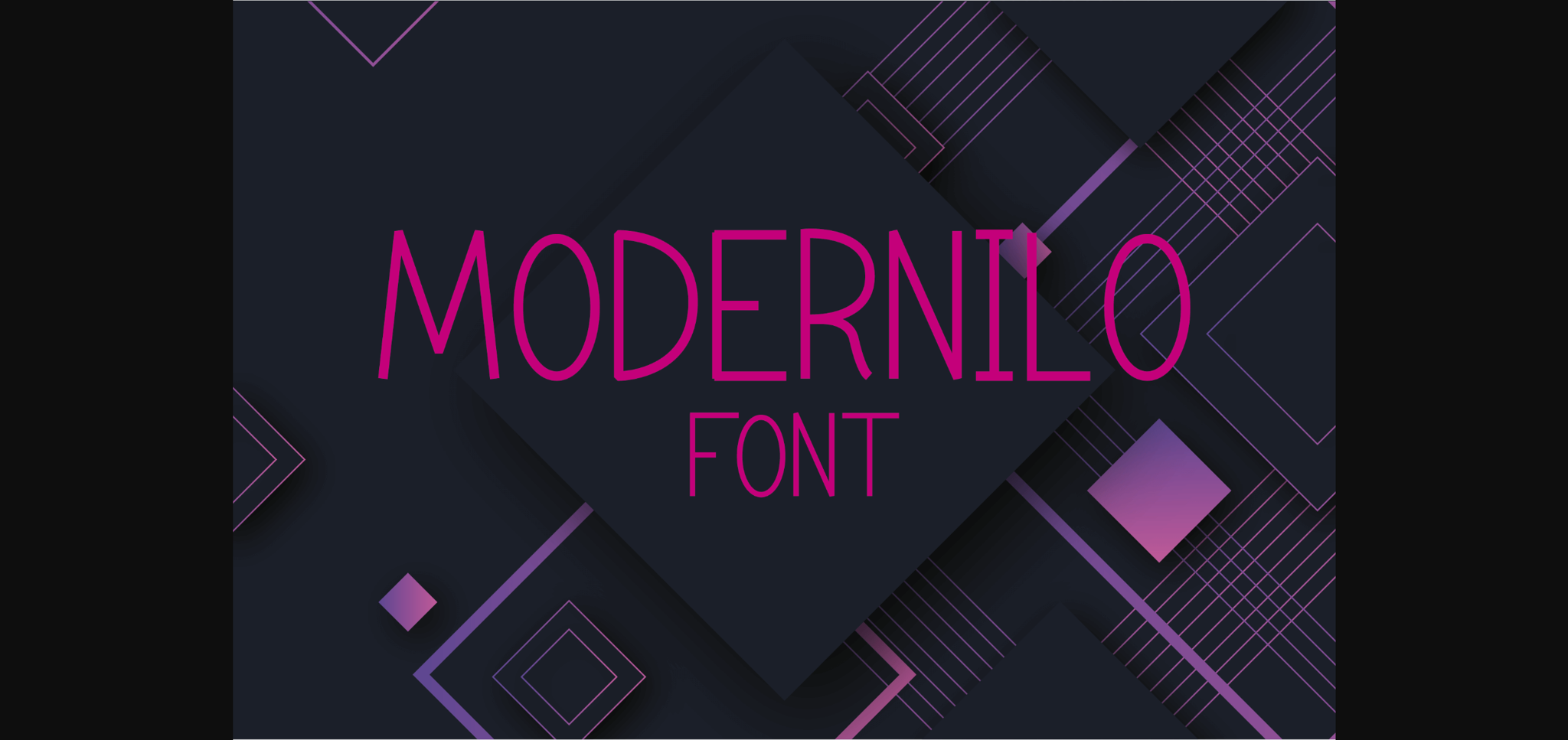
About Modernilo Font
Modernilo looks gorgeous and feels incredibly modern and light. This sans serif font will deliver any message with confidence and charm!